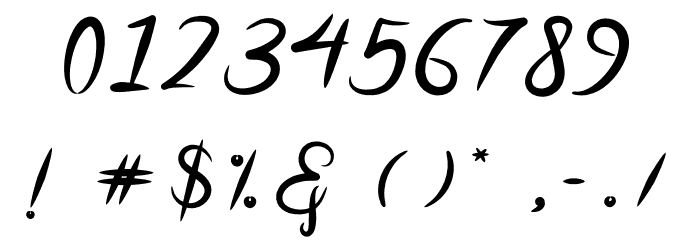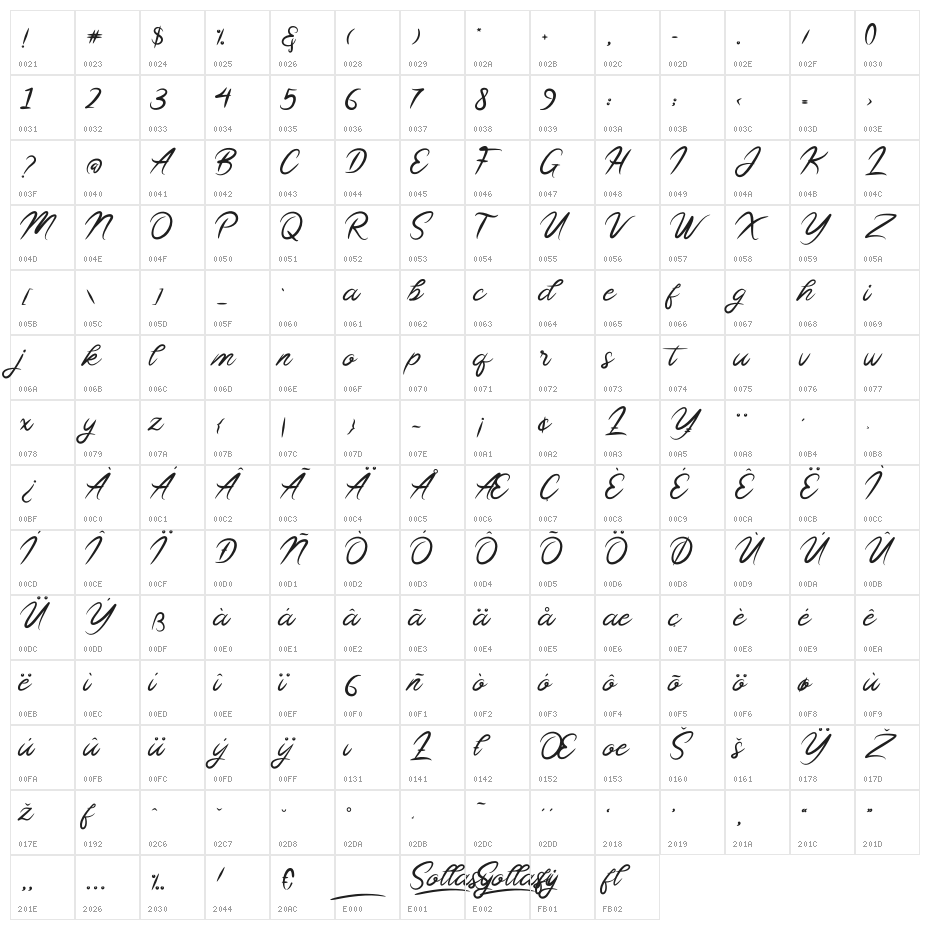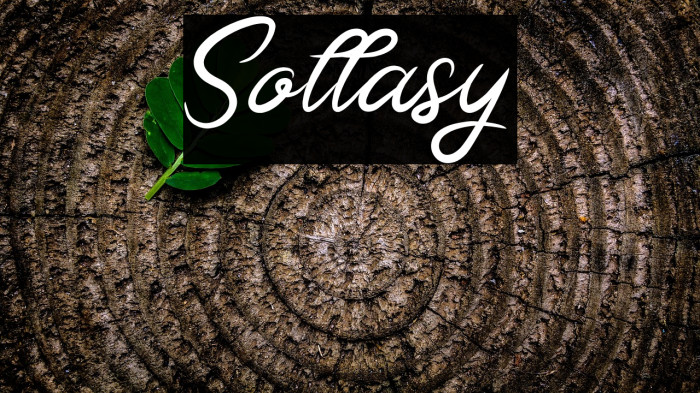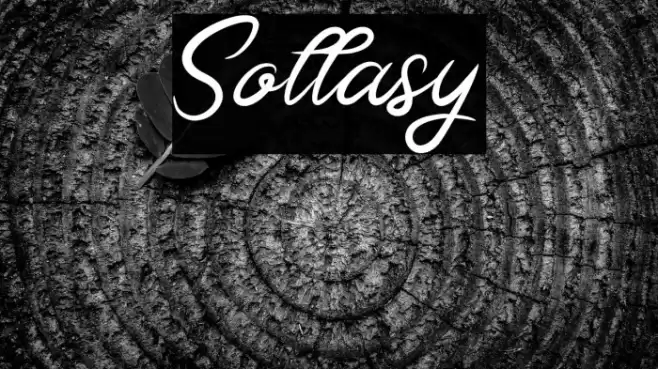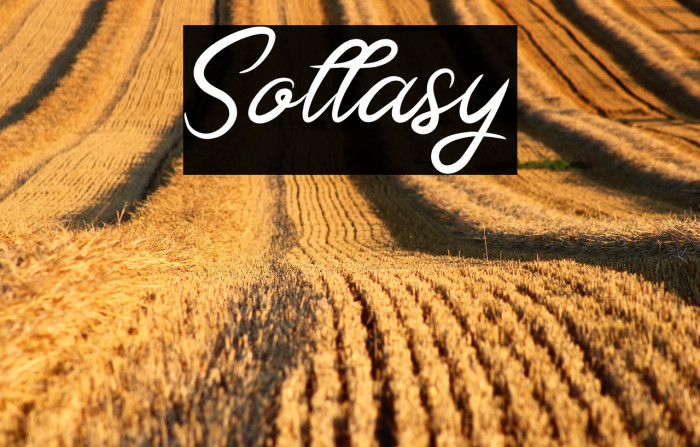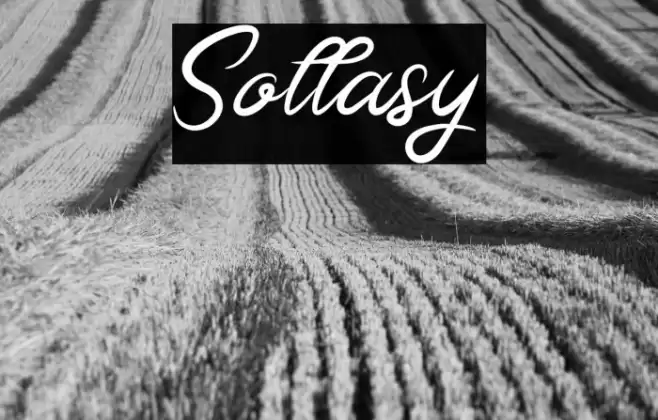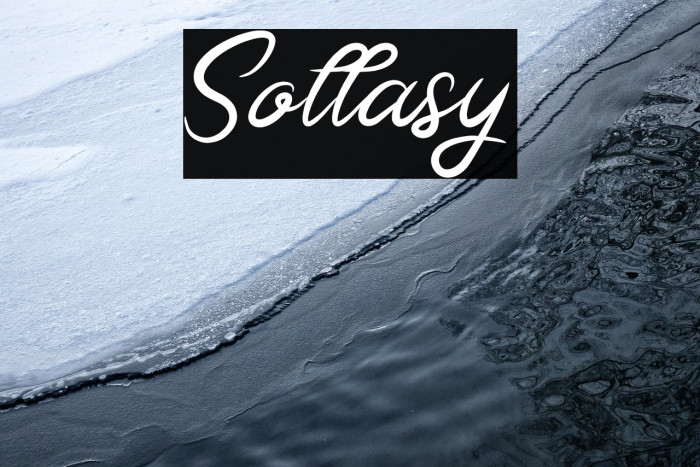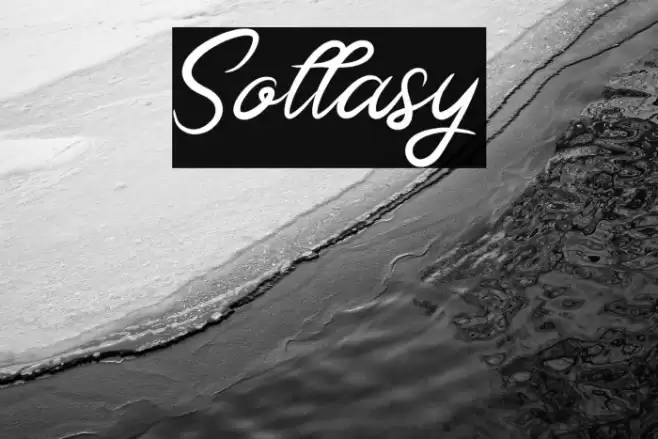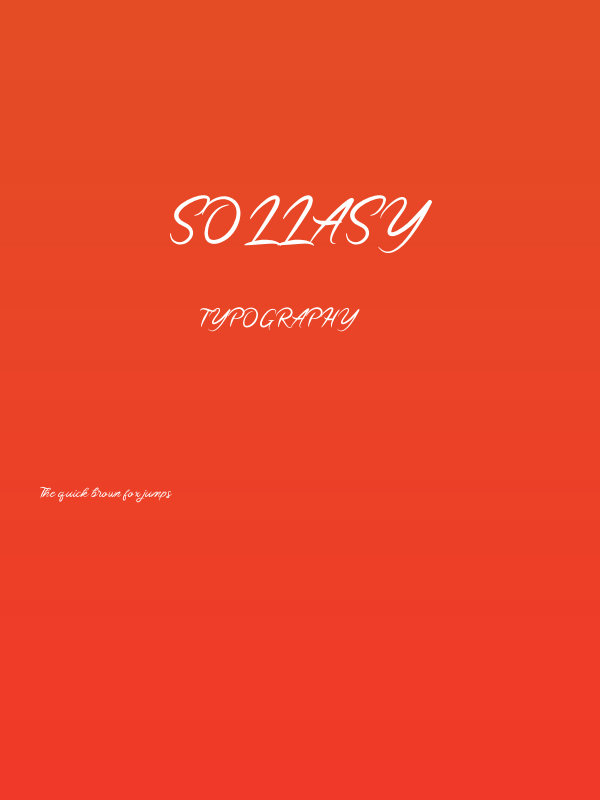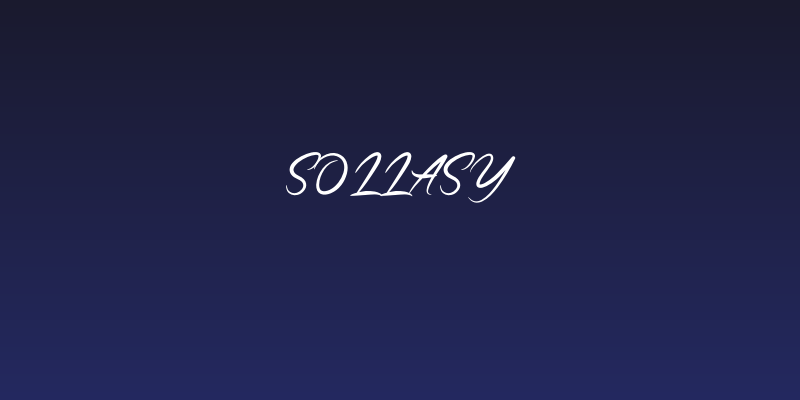
Sollasy Font
Sollasy Description
This font exudes a sense of elegance and fluidity, characterized by its cursive script style. The letters are interconnected, creating a seamless flow that mimics natural handwriting. The strokes are smooth and slightly varied in thickness, adding a touch of sophistication. The uppercase letters are bold and prominent, while the lowercase letters maintain a consistent and graceful appearance. Numbers and special characters are designed to complement the overall aesthetic, ensuring a cohesive look across all elements. This font is ideal for projects that require a personal and artistic touch.
| Overall Style | Elegant, Artistic |
| Proposed Projects | Ideal for wedding invitations, greeting cards, personal branding, and artistic projects. |